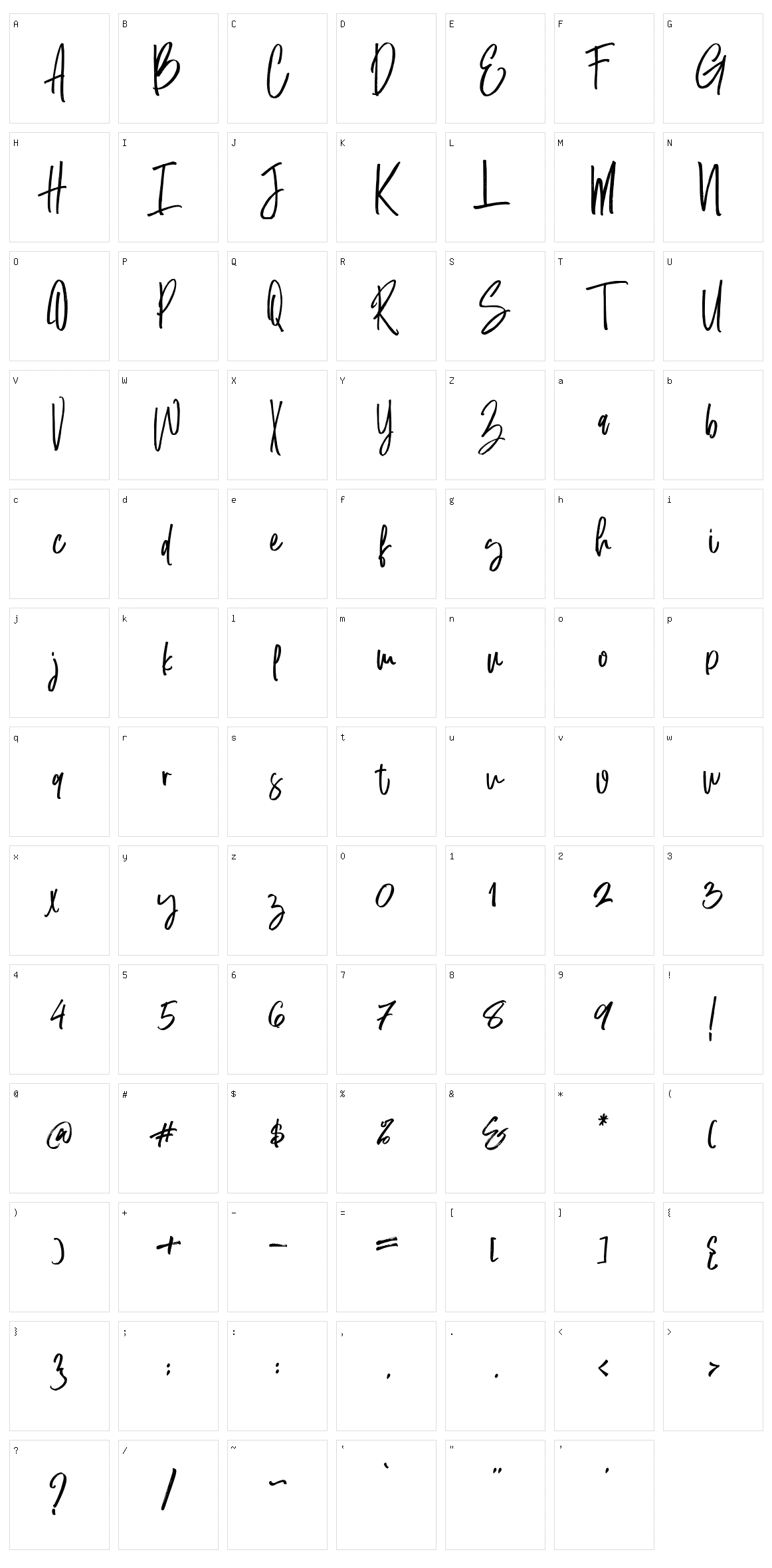
The free font Dust in the Wood is carefully designed by Thirtypath, showcasing a thoughtful balance of creativity and usability and falls under the Script font style. When you download the ZIP file, it contains only 279.32 KB of font files, making it lightweight and quick to download. Please review the license details below to understand permitted usage and distribution rights. If license information is not available, we recommend using this font for personal projects only or contacting the author directly for commercial usage permissions.